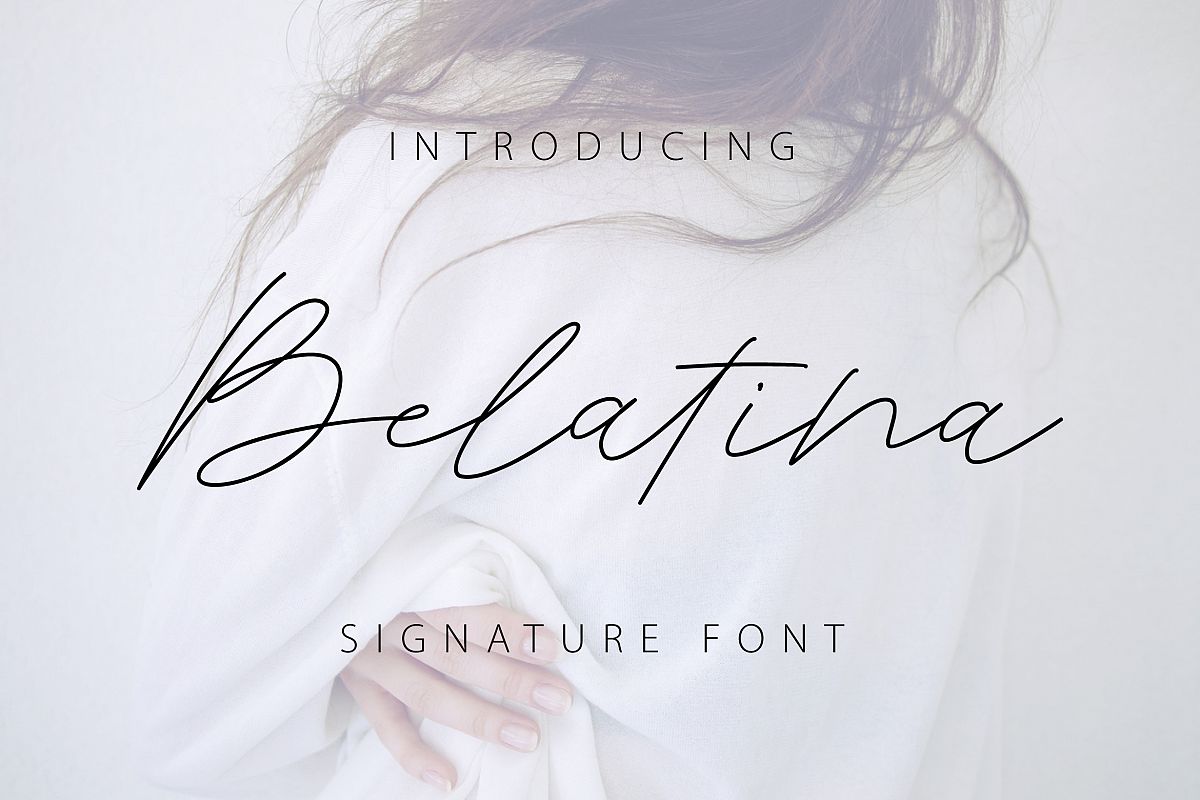
Belatina Font
Belatina is a modern handwritten font. Its elegant style is perfect for branding, signatures, watermarks, business cards, clothing, magazines, web, and every other design which needs a classy touch.